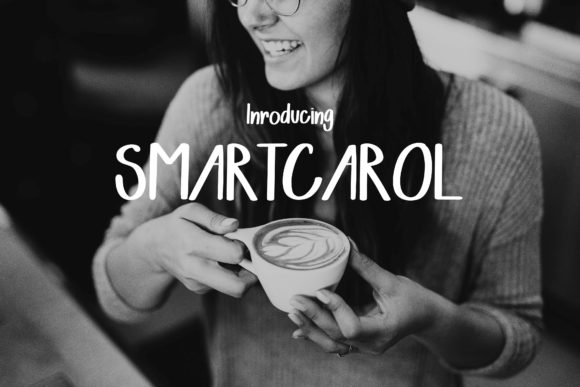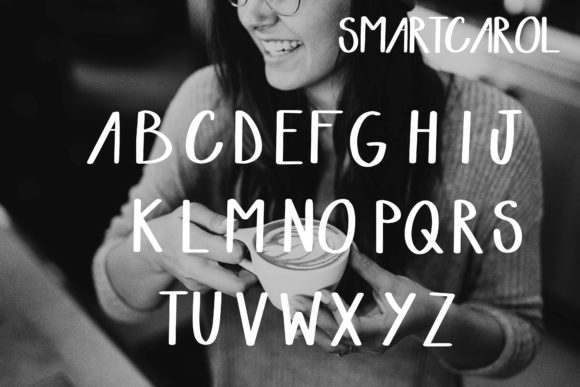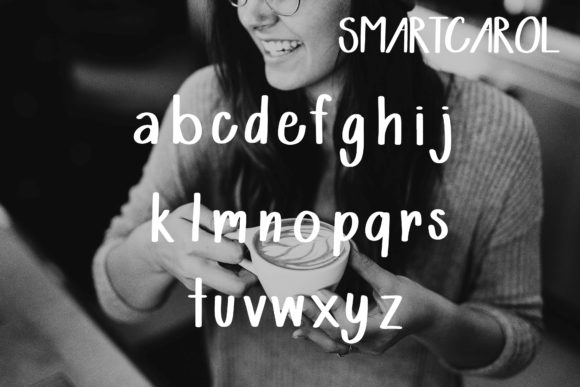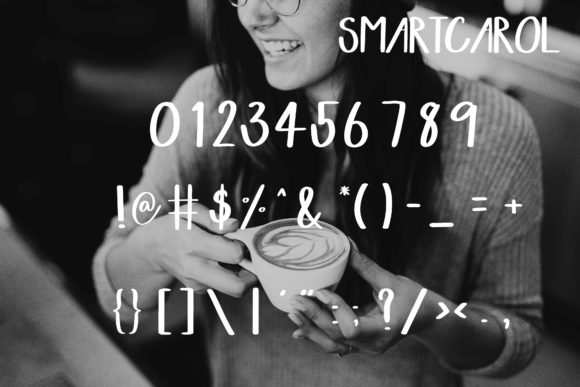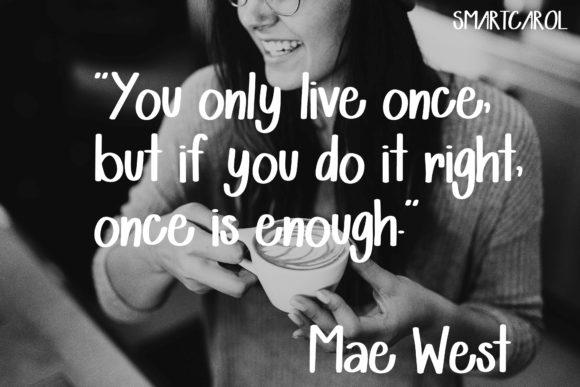
Smartcarol Font
Smartcarol is a beautiful handwritten font, carefully handcrafted to become a true favorite. Use this gorgeous and amazing font to bring any DIY project to life!